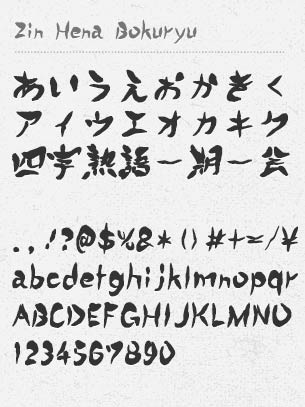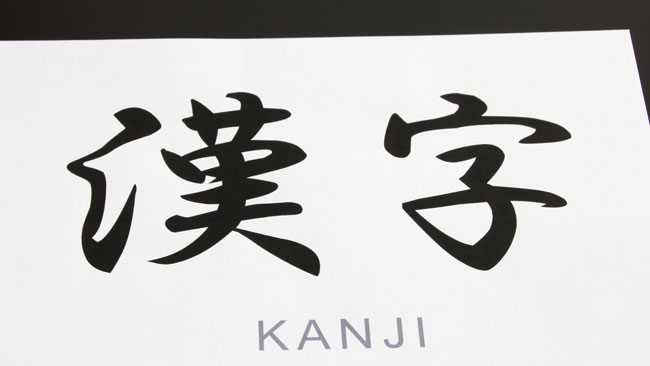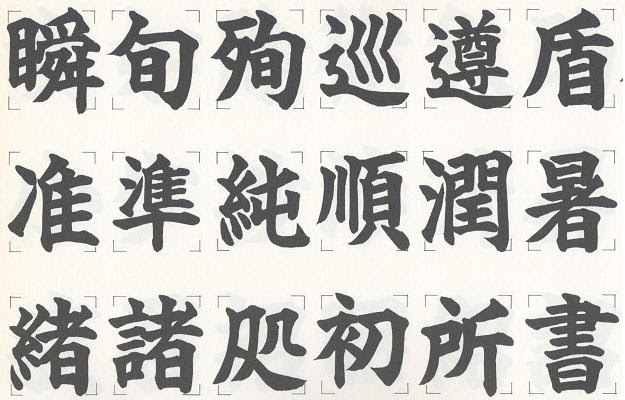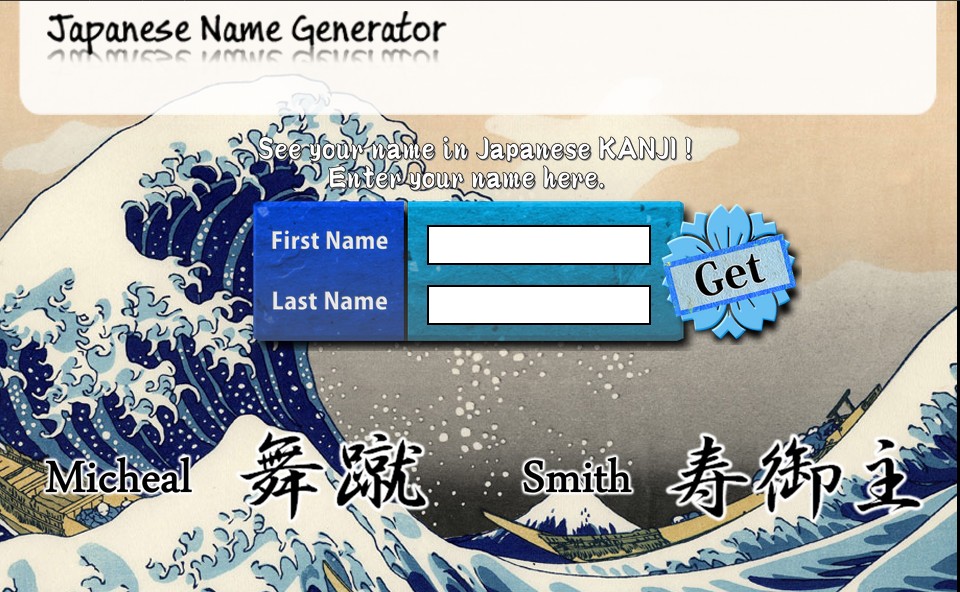
The following tool will convert your text to images and you can use different Japanese fonts colors text effects. WOFF is supported in Firefox versions 36.
Japanese Font And Kanji Generators Brush Stroke Japanese Calligraphy Shodo Art
Japanese calligraphy font generator. More about this family. This kanji name generator is an automated system which only to show you samples of kanji for your namePlease understand that sometime it may not show you appropriate kanji characters. Just input your text and click the Generate.
Harukaze Brush Font Japanese Calligraphy New Fonts. UD Reimin Pro B. Art of Japanese Calligraphy W.
If you want to use Japanese fonts online without downloading you can use our text generator below. Japan Probrush Illustrator Brushes Adobe Illustrator Brushes Photoshop Design. UD Reimin Pro R.
Looking for Calligraphy Japanese fonts. As an option you can receive image files Jpg Gif Transparent PNG and outline vector files Illustrator AI. Our font generator works by taking normal text you input and converting it into a unique and fun font you can use.
Its an extremely popular form of handwritten artwork and professional designed Kanji font. Pin By Tammie Allen On Jewelry Japanese Calligraphy Fonts. Write whatever you want in the text box below and we will replace all letters and numbers with a Japanese styled font.
Individual Styles Family Packages Tech Specs Licensing. Japanese font Kakushin Gyosho is a semi-cursive script that is only slightly cursive and easy to rea. If you dont want the hassle of downloading and installing fonts but just want to use calligraphy fonts fonts online you should check our.
Click to find the best 19 free fonts in the Calligraphy Japanese style. UD Reimin Pro H. How To Prepare A New Brush Japanese Calligraphy Tutorials For Beginners Calligraphy Tutorial Japanese Calligraphy Art.
Here are the steps to complete this process. UD Reimin Pro L. The Text Generator section features simple tools that let you create graphics with fonts of different styles as well as various text effects.
Button and youll get a zoomed-in look at the text in a larger size. Art Of Japanese Calligraphy. Kanji fonts generally support the four major writing systems used in Japan.
When it comes to Eastern culture we see Kanji font A LOT. It is our hope that this free online reference will reduce the amount of improperly drawn ShodÅ as well as limit the inaccurate translations that we see on tattoos posters stock photos websites and more. Choose the text style you like.
Convert standard text into crossed out text with this online Japanese text generator. For each type of font you can generate a separate generated calligraphy just click the edit link then enter your text choose the color and size and then generate the calligraphy. Hiragana Katakana Kanji and Romaji.
Type your text into the font generator. Kanji font isnt easily read by people who dont know Japanese and if you want to see what it will look like in a tattoo our Japanese font generator can certainly help. Kanji is a Japanese writing system based on modified Chinese characters.
Kanji Name Generator Generate kanji name by your own name. Available Web Font Formats. Hakusyu Gyosho is a free font line font provided by the font maker Hakusyu typeface.
Art Of Japanese Calligraphy was designed by Natsuko Hayashida and published by Okaycat. The following tool will convert your text in horizontal vertical writing to 3 professional Japanese fonts for Japanese Kanji Tattoo designs Kanji t-shirts Signboards Billboards Kanji Tombstone KarateJudo belt Website design anime transcripts etc. Wait for the font generator to provide you with different styles.
Create your own Asian Japanese texts with this generator. For those who want to get Kanji tattoos t-shirts karatejudo belt book covers product packaging etc using Japanese kanji fonts Well translate your words or phrases into Japanese symbols designed with 3 different calligraphy styles and stencil outlines fonts you select.